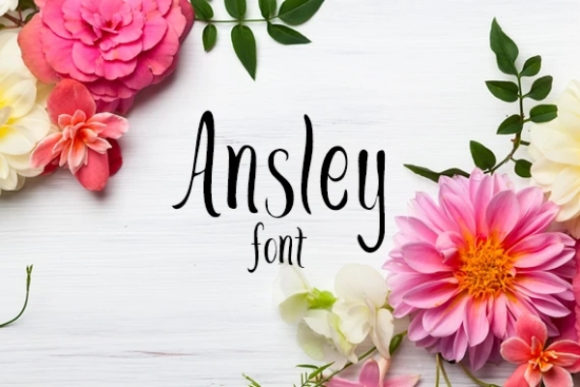
With every stroke of the Ansley Font, embark on a journey of creativity and self-expression. This captivating font family, reminiscent of a whimsical handwritten script, transforms your words into a vibrant symphony of individuality. Dive into a world where imagination and elegance collide, where your designs dance across the page with a charm that captivates and inspires.
Unleash the boundless potential of Ansley Font and elevate your creations to new heights. Its enchanting style, reminiscent of a handwritten note penned by a passionate artist, breathes life into your designs, captivating your audience with its authentic and heartfelt appeal. Whether you're a creative professional or simply seeking a touch of personal flair, Ansley Font is the perfect choice for adding a dash of personality to your projects.
As you explore the diverse collection of Ansley Font, discover a kaleidoscope of styles that mirror your unique creative vision. From the elegant flourishes of 'Allegro' to the playfully whimsical strokes of 'Disco Fever,' each variation of this font family is a work of art in itself, awaiting your imagination to bring it to life.
So, step into the world of Ansley Font and let your creativity soar. Embrace the limitless possibilities of this enchanting font family, and let the magic of its design ignite your passions. Adorn your creations with a touch of elegance, a whisper of whimsy, and a dash of individuality that speaks volumes. With Ansley Font, your designs will captivate and inspire, leaving a lasting impression that resonates with your audience on a deeper level.